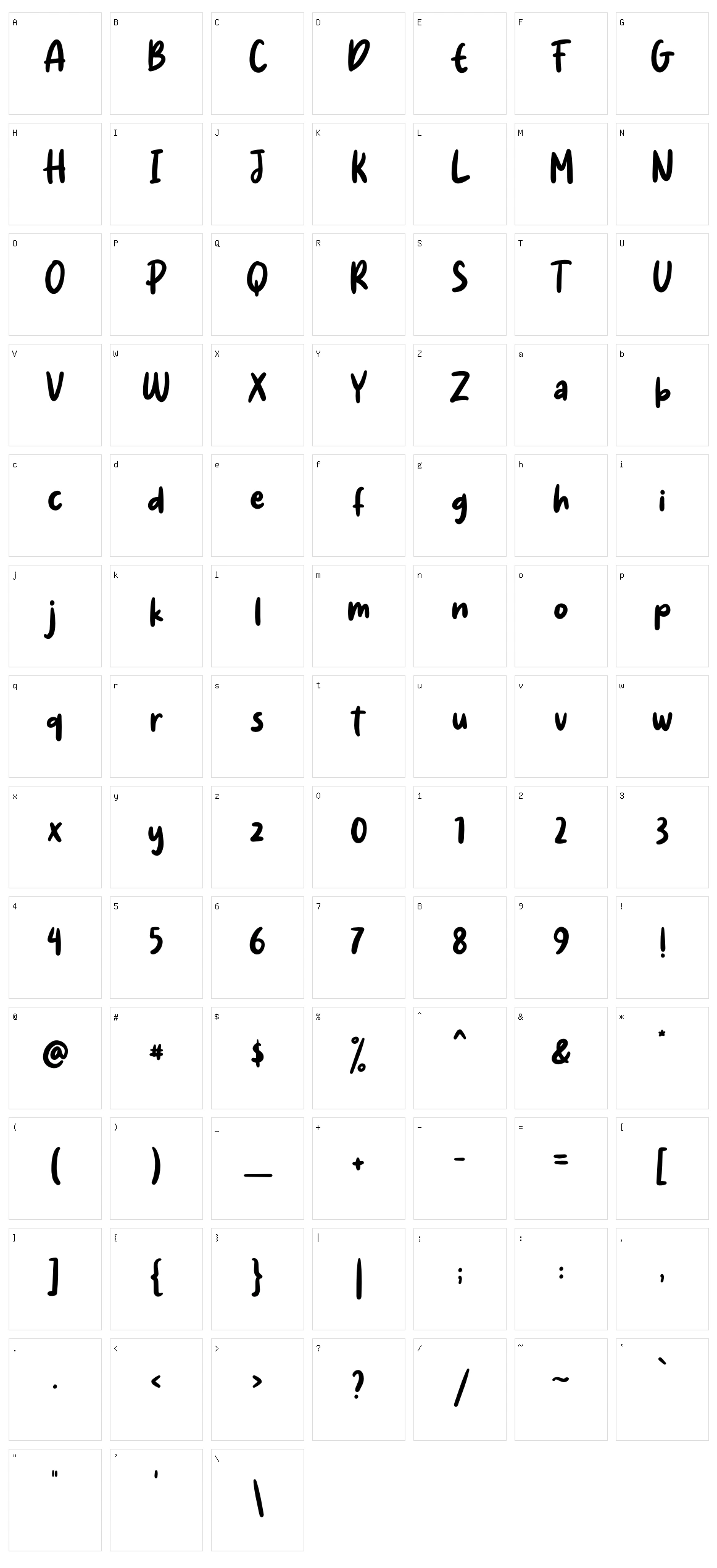
The free font Honey Jar is carefully designed by Typefactoryco, showcasing a thoughtful balance of creativity and usability and falls under the Script font style. When you download the ZIP file, it contains only 129.46 KB of font files, making it lightweight and quick to download. Please review the license details below to understand permitted usage and distribution rights. If license information is not available, we recommend using this font for personal projects only or contacting the author directly for commercial usage permissions.